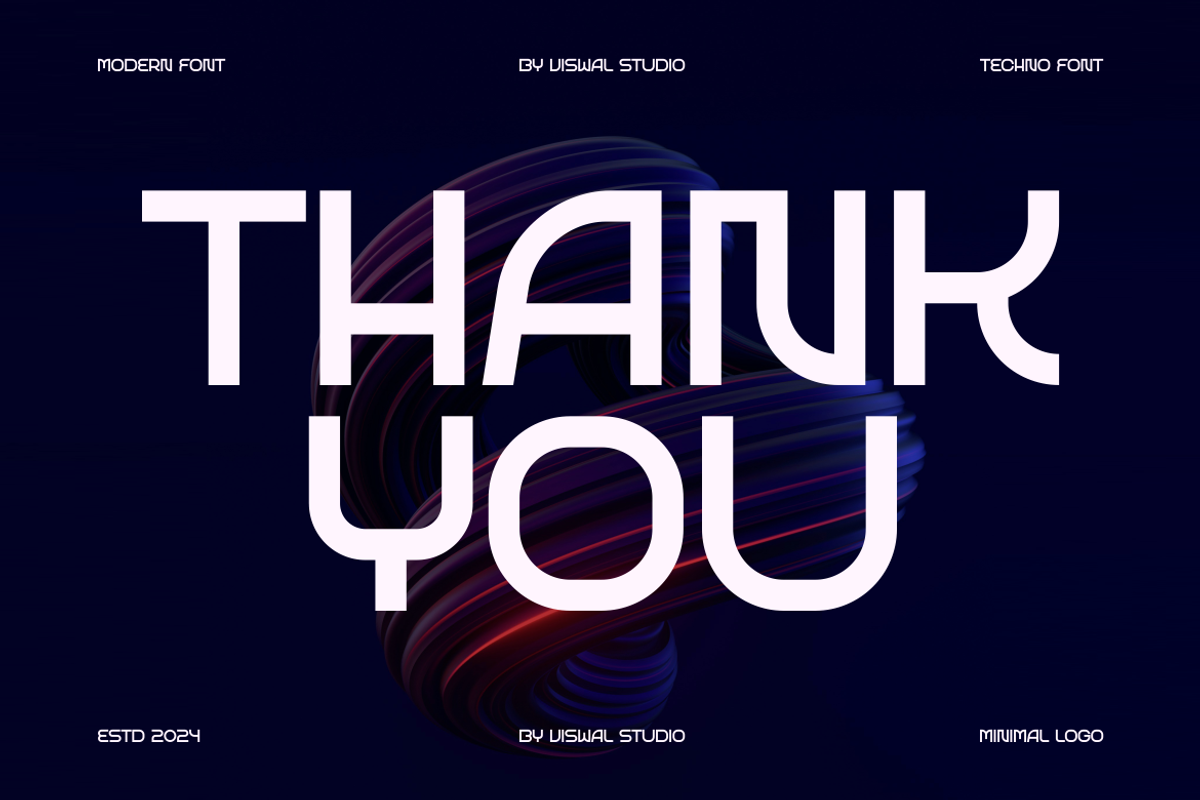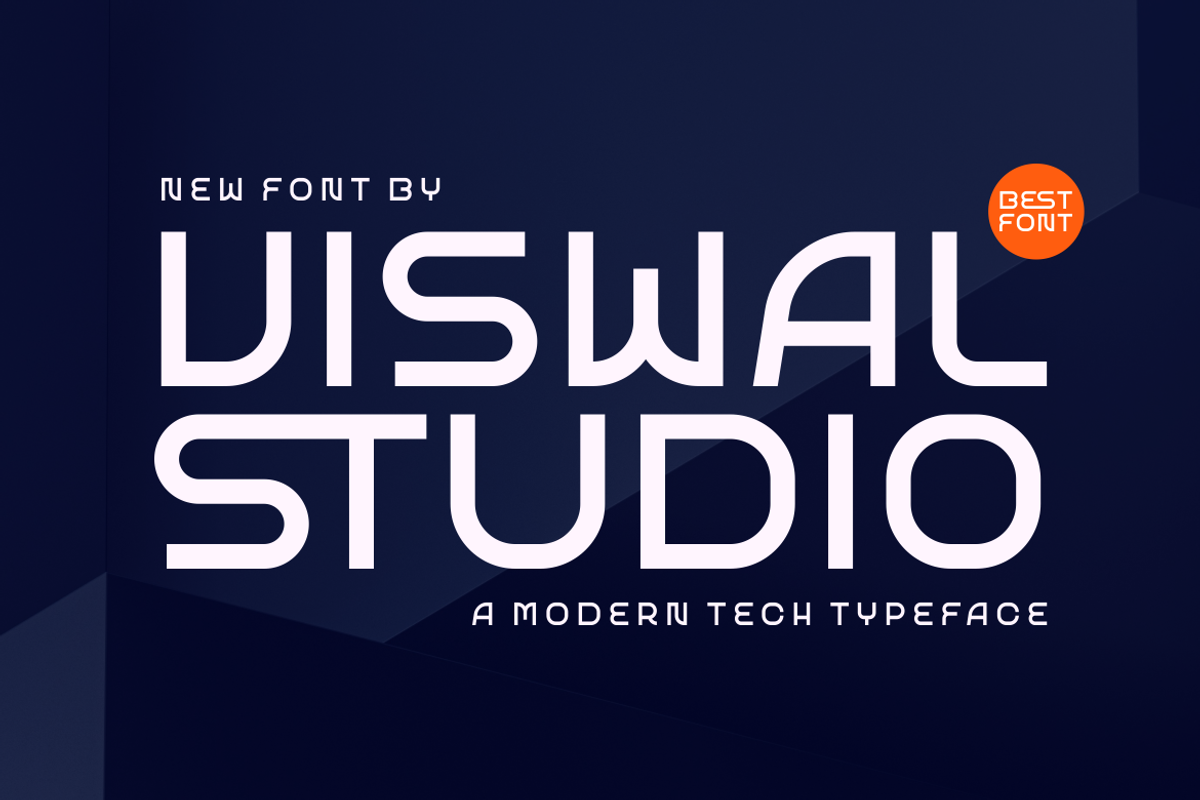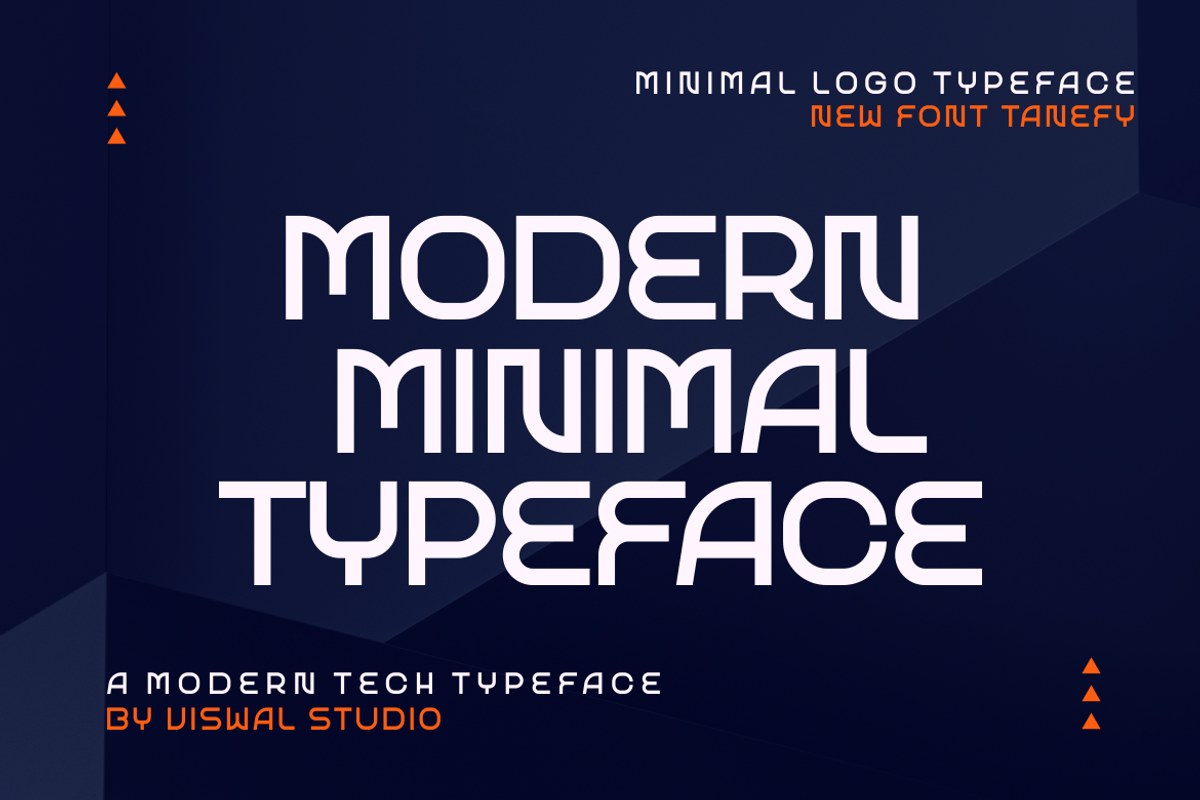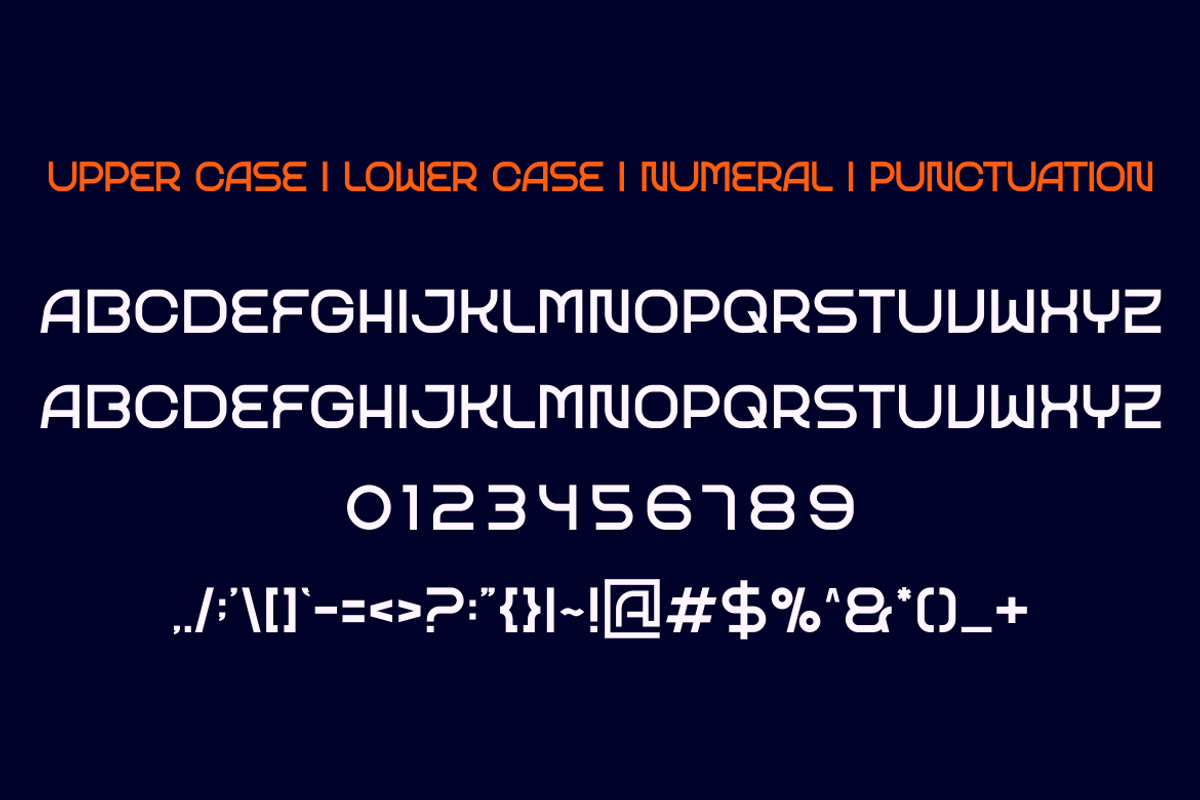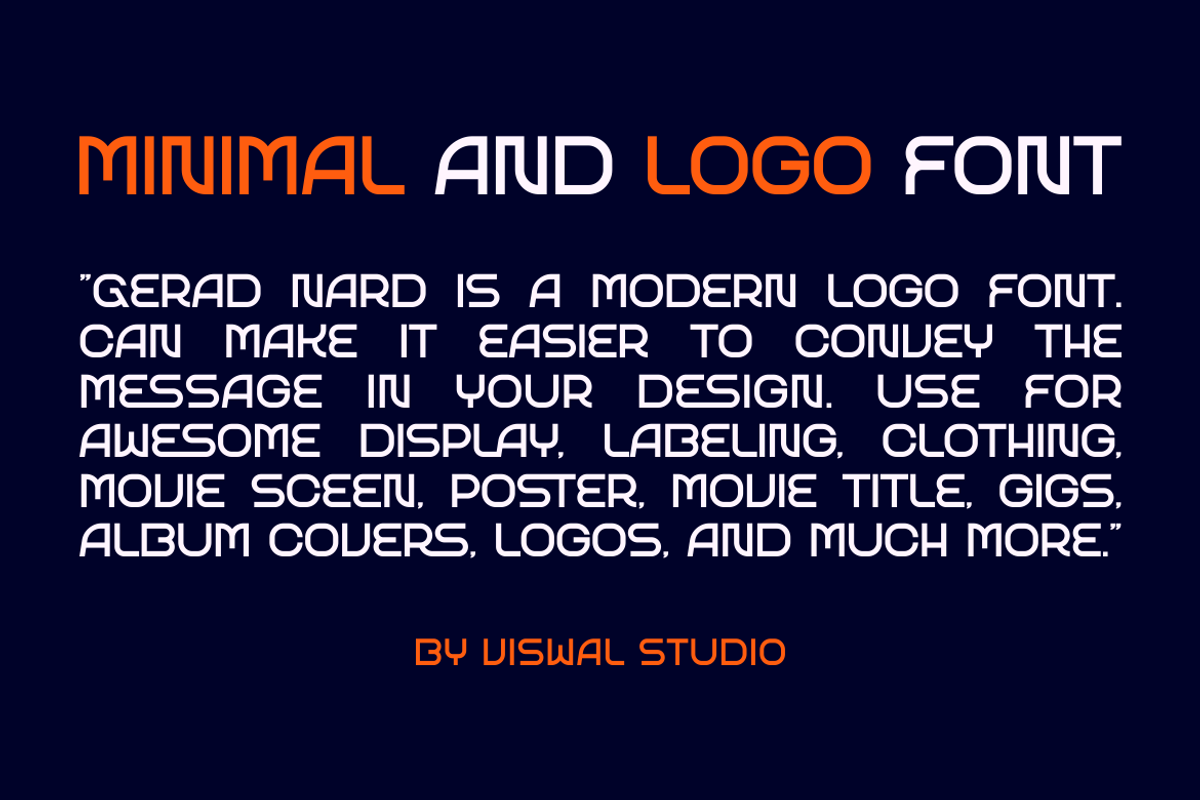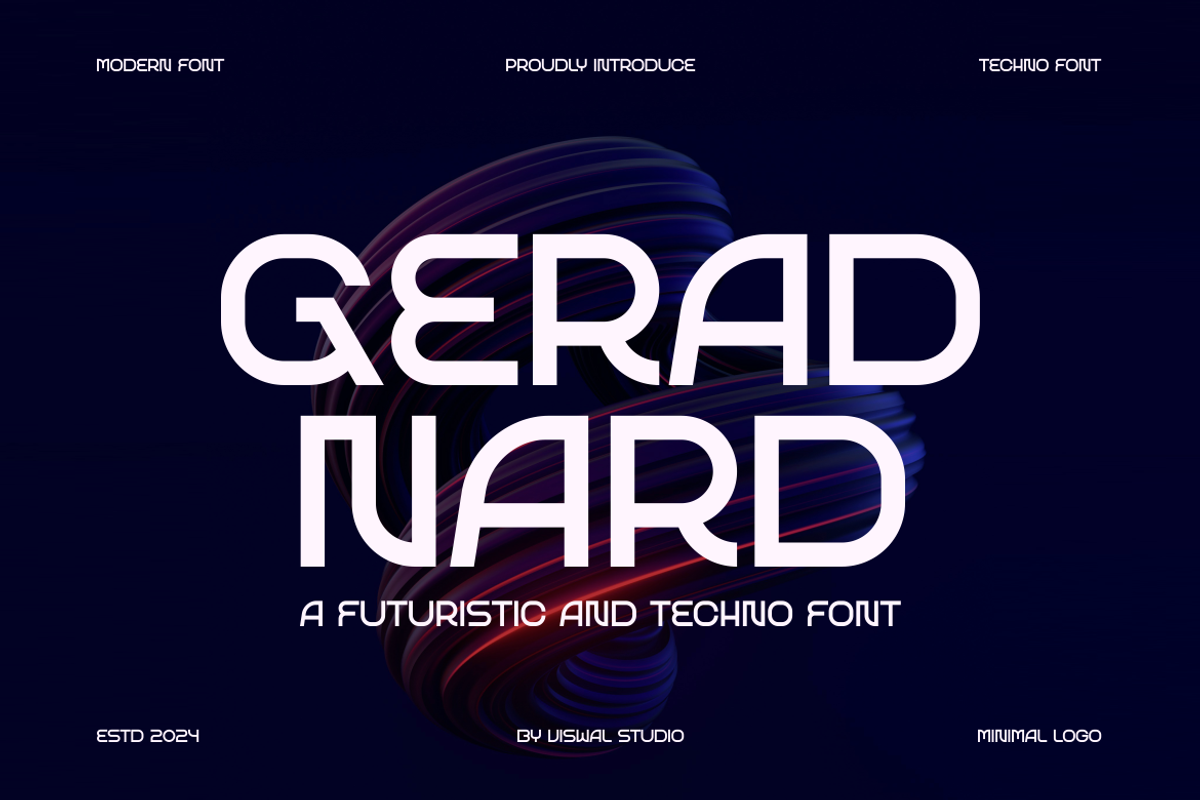
Gerad Nard - Modern Tech Font
Presenting Gerad Nard Is A Modern Tech Font.
Can Make It Easier To Convey The Message In Your Design. Font Is Suitable For Logo, Labels, Badge, Branding, Magazine, Poster, Title, Gigs, Covers And Etc. Our Fonts Have Uppercase & Lowercase, Numeral & Punctuation, And Opentype Features. For Amazing Designs You Can Mix With Other Fonts As A Complement.